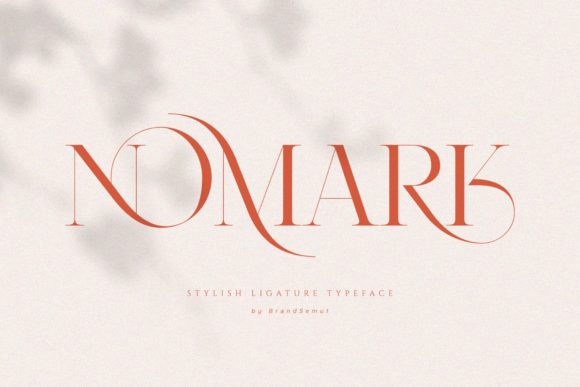
Dive into the world of calligraphy with Nomark Font, a serif font crafted with finesse, designed to transport your designs to new heights of elegance. Every letter, meticulously crafted by the skilled hands of BrandSemut, exudes a charm that will leave your audience captivated.
Nomark Font is not just a font; it's an experience that engulfs your senses and inspires creativity. Its timeless beauty complements any design, whether it's a delicate wedding invitation, a sophisticated logo, or a captivating social media post.
Unlike other fonts that fade into the background, Nomark Font commands attention, demanding to be seen and appreciated. Its bold presence makes it the perfect choice for headlines, grabbing the reader's attention and ensuring your message is heard loud and clear.
But Nomark Font doesn't stop there. Its versatility extends beyond headlines; it seamlessly transitions into blocks of text, effortlessly guiding the reader's eyes through your content. Its variations, from maximum to minimum, provide the flexibility to adapt to any design challenge, ensuring your text remains legible and engaging.
Whether you're a seasoned designer or just starting, Nomark Font is the perfect tool to elevate your creations. Its adaptability shines on web platforms, print materials, moving images, and more. No matter where you use it, Nomark Font leaves an impression that lingers long after the page is turned or the video ends.
Don't settle for ordinary fonts that blend into the crowd. Embrace the enchanting allure of Nomark Font and unlock a world of captivating designs. Let your creativity flourish as you witness your ideas transform into stunning realities. Step into the realm of beauty and excellence; let Nomark Font be your guide.